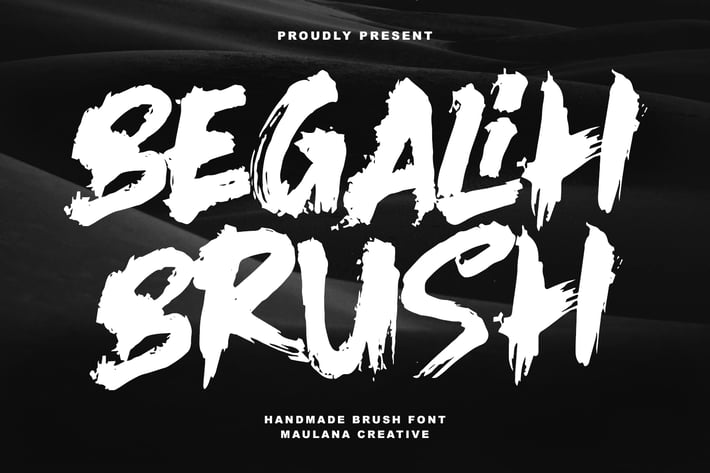
Begalih Brush Handmade Font
Begalih brush handmade font. This font is good for logo design, Social media, Movie Titles, Books Titles, a short text even a long text letter and good for your secondary text font with signature or script typeface. Make a stunning work with Begalih handmade brush font.